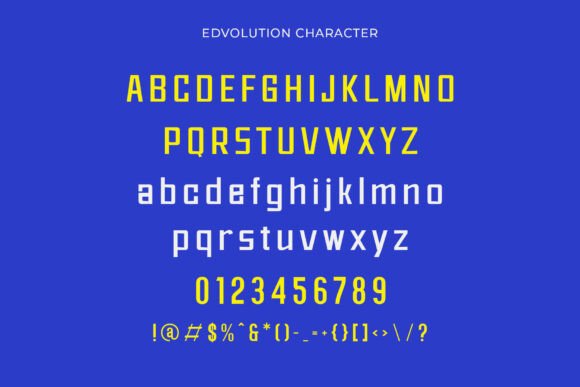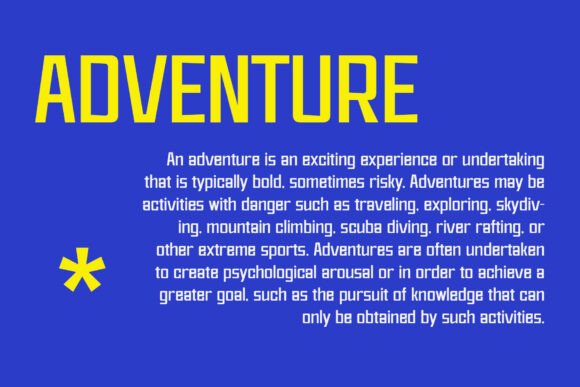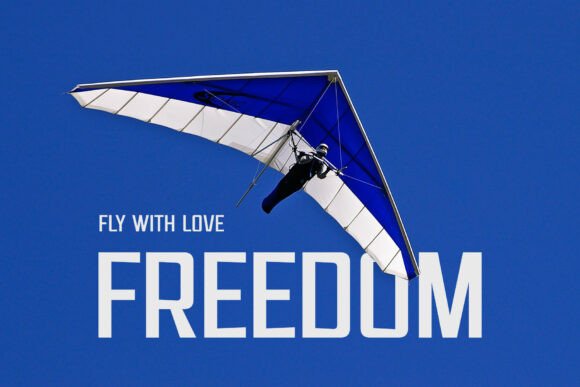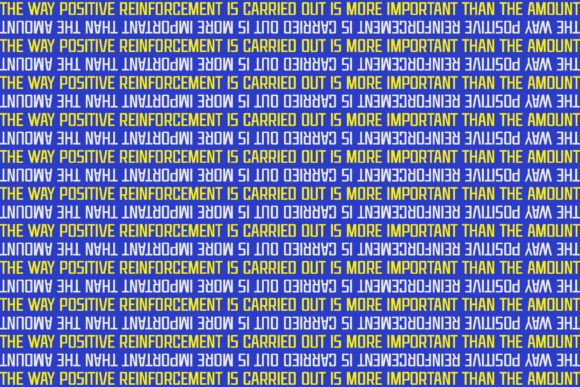
Introducing Edvolution Font: The Future of Design
In the ever-evolving world of design, typography plays a crucial role in communicating messages, expressing creativity, and building brand identities. For designers and crafters seeking a font that embodies innovation, clarity, and professionalism, Edvolution Font is the perfect solution. This clean, geometric sans serif font is specifically designed to make a strong visual impact, making it ideal for tech, education, and professional branding.
The Design Philosophy Behind Edvolution
Edvolution Font is rooted in a design philosophy that prioritizes clarity, structure, and versatility. Its creator aimed to develop a typeface that not only looks futuristic but also ensures readability and legibility across various mediums. Whether you’re working on a digital project or a print design, Edvolution’s sharp edges and clean lines make it an excellent choice.
Key Features of Edvolution Font
- Clean and Geometric Design: Edvolution boasts a sans serif design with geometric precision, giving it a modern and sleek appearance.
- Futuristic Feel: The font’s design elements evoke a sense of futurism, making it perfect for tech-related projects, educational materials, and forward-thinking brands.
- Strong Visual Impact: The sharp edges and structured form of Edvolution ensure that your text stands out, capturing the attention of your audience.
- Versatility: Edvolution is highly versatile, suitable for a wide range of design applications, from digital interfaces to print materials.
- Clarity and Readability: Despite its futuristic look, the font maintains high levels of clarity and readability, ensuring your message is conveyed effectively.
Use Cases for Edvolution Font
Edvolution’s unique combination of futuristic aesthetics and functional design makes it suitable for various projects:
- Tech and Software Branding: Perfect for startups, apps, and software looking for a modern edge.
- Educational Materials: Ideal for textbooks, online courses, and educational platforms aiming for a professional and innovative look.
- Professional Branding: Suitable for businesses and professionals seeking to convey a sense of innovation and reliability.
- Digital and Print Design: Works well in websites, magazines, brochures, and any project requiring a clean, impactful typeface.
Tips for Using Edvolution Font Effectively
To maximize the potential of Edvolution Font, consider the following tips:
- Pair with Complementary Fonts: For added contrast and hierarchy, pair Edvolution with serif fonts or scripts that complement its geometric style.
- Experiment with Sizes: Utilize different font sizes to create visual hierarchy and emphasize key information.
- Play with Colors: While Edvolution looks great in black and white, experimenting with bold colors can enhance its futuristic appeal.
- Consider Line Spacing: Ensure adequate line spacing to maintain readability, especially in dense text blocks.
| Font Name | Edvolution Font |
| Author | Ariya Works Studio |
Edvolution Font represents a significant evolution in typography, offering designers and crafters a tool that is both aesthetically pleasing and functionally effective. Its clean, geometric design, coupled with a futuristic feel and strong visual impact, makes it an excellent choice for projects requiring a modern and professional edge. Whether you’re working in tech, education, or professional branding, Edvolution is poised to elevate your designs to new heights.
Incorporating Edvolution into your design arsenal can transform your projects, giving them a distinctive look that captures the essence of innovation and clarity. As the design landscape continues to evolve, having a font like Edvolution that embodies the spirit of the future is invaluable. Explore the possibilities with Edvolution Font today and discover how it can revolutionize your design approach.